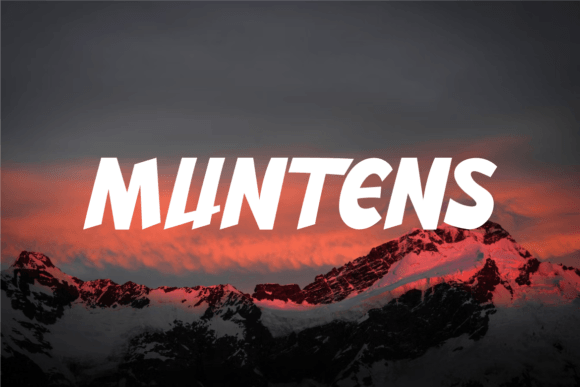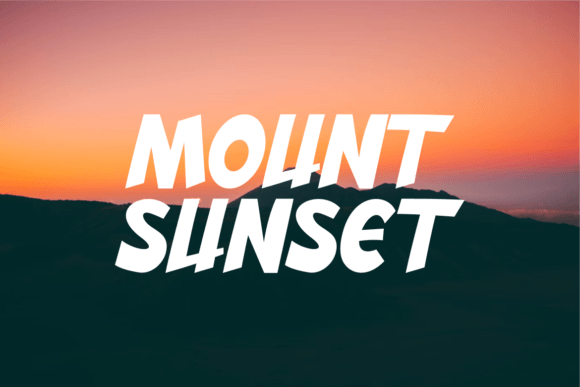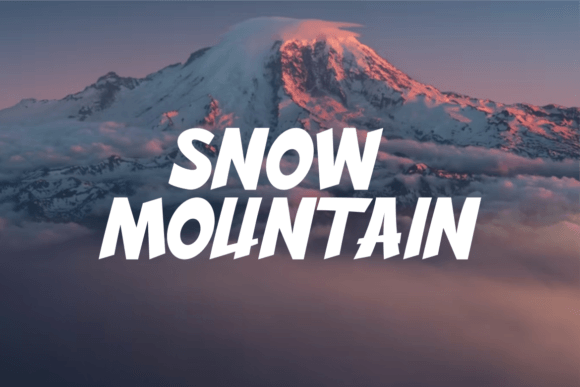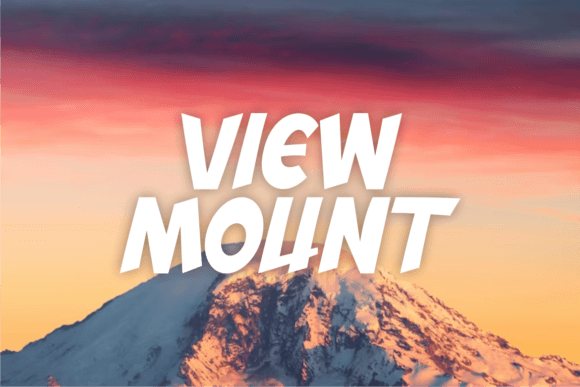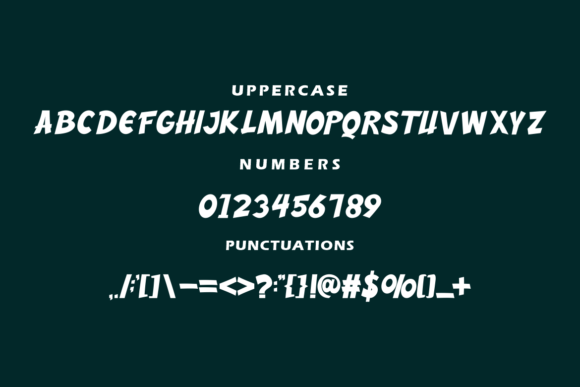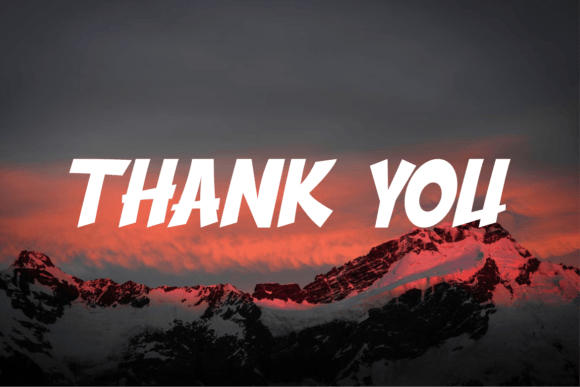
Introduction to Muntens Font
Have you ever been stuck in front of a blank canvas, trying to find the perfect font to bring your creative vision to life? As a designer, you know how crucial the right typography can be in elevating your project from ordinary to extraordinary. That’s where Muntens Font comes in – a modern display font that exudes elegance, sophistication, and a touch of uniqueness.
Whether you’re working on a high-end branding project or a personal typography quote, Muntens Font is the perfect design resource to take your creative project to the next level. With its clean lines, transparent background, and high-quality aesthetic, this font is sure to make your designs stand out from the crowd.
What sets Muntens Font apart is its versatility – it’s available for free download, making it an invaluable asset for designers of all levels. In this article, we’ll dive deeper into the world of Muntens Font and explore its many uses, from website headers to magazine covers, and everything in between.
Key Features of Muntens Font
- Designed with precision, boasting a resolution of 300 DPI for crisp and clear results.
- Comes in a range of sizes, from 12pt to 72pt, making it versatile for use in various design contexts.
- Perfect for designers seeking a high-quality, free design resource that adds a touch of sophistication to their creative project.
Honest Review: Muntens Font
As a designer, I’m always on the lookout for high-quality design resources that can elevate my creative projects. Recently, I had the chance to try out the Muntens Font, and I’m excited to share my honest review.
- High-quality typography: Muntens Font boasts beautiful, elegant letterforms that are perfect for a variety of creative projects.
- Transparent background: This font comes with a transparent background, making it easy to layer over images or other design elements.
- Limited font styles: While the font itself is beautiful, there are limited styles available, which may not be suitable for every design project.
- No bold or italic versions: Unfortunately, there are no bold or italic versions of the font available, which can limit its use in certain situations.
Overall, I was impressed with the Muntens Font’s high-quality typography and transparent background. While it may have some limitations, it’s still a valuable resource for designers working on creative projects. If you’re looking for a beautiful, free font to add to your design arsenal, Muntens Font is definitely worth checking out.
Muntens Font is a versatile design resource that can be used for various creative projects, including
– Branding and logos
– Infographics
– Print materials
– Digital presentations
Tips for Getting the Most Out of Muntens Font
For the best results, use Muntens Font on a high-quality design project with a transparent background. This will allow you to create visually appealing designs that stand out from the rest. You can also use Muntens Font in combination with other design elements to create a unique and eye-catching design.